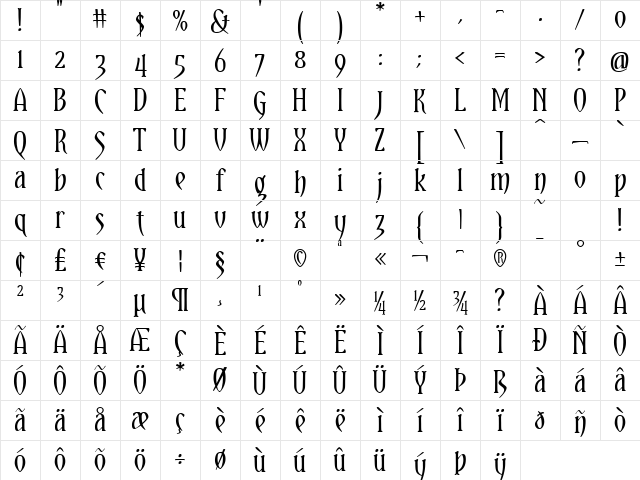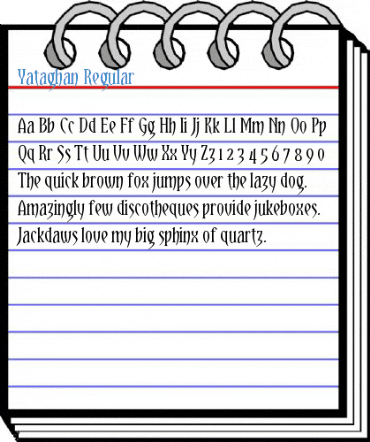
Yataghan Regular
Design Context for Yataghan
Yataghan is a composed and adaptable typeface that performs quietly and consistently across a wide range of design contexts.
Pro Tip: Use Yataghan in both headline and body roles to test its range before committing to a single application.